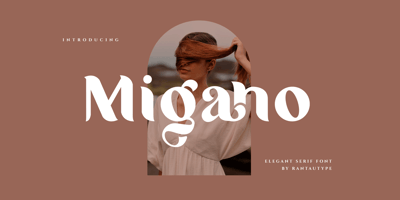
Migano
Migano font
Migano Font Family was designed by Yudi Pratama Chandra and published by RantauType. Migano contains 2 styles and family package options. Migano is classy, bold upper and lowercase typeface that looks incredible in both large and small settings. Migano is perfect for branding, logos, invitation, masterheads and more.Also i make separate in reguler and ligature so you can choice want to use ligature or not. Upper and lowercase letters are included, more alternate, numerals and punctuation. (See preview image for the full character map.)What you have: Standar character A-Z and a-z Numberial and Functional Alternate and ligature Multilinggual support Works on PC & Mac Simple installations Accessible in Adobe Illustrator, Adobe Photoshop, Adobe InDesign, even work on Microsoft Word. Thank you for your purchase!Hope you enjoy with our font!